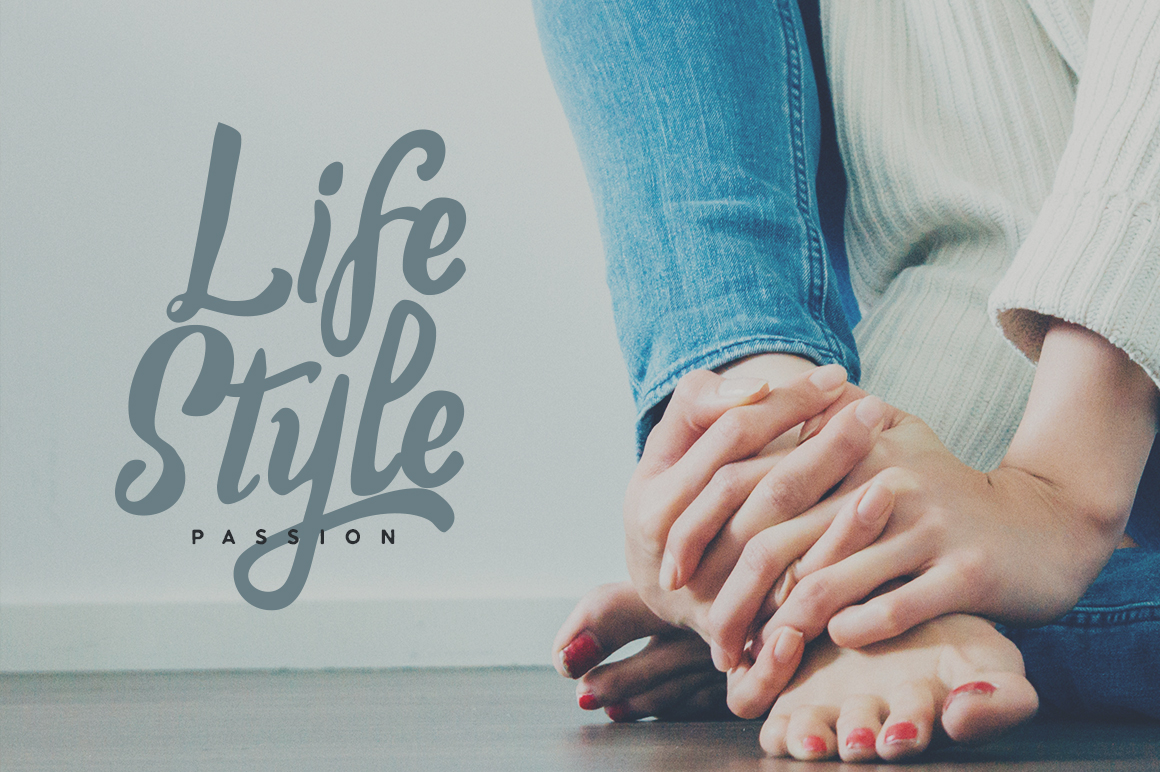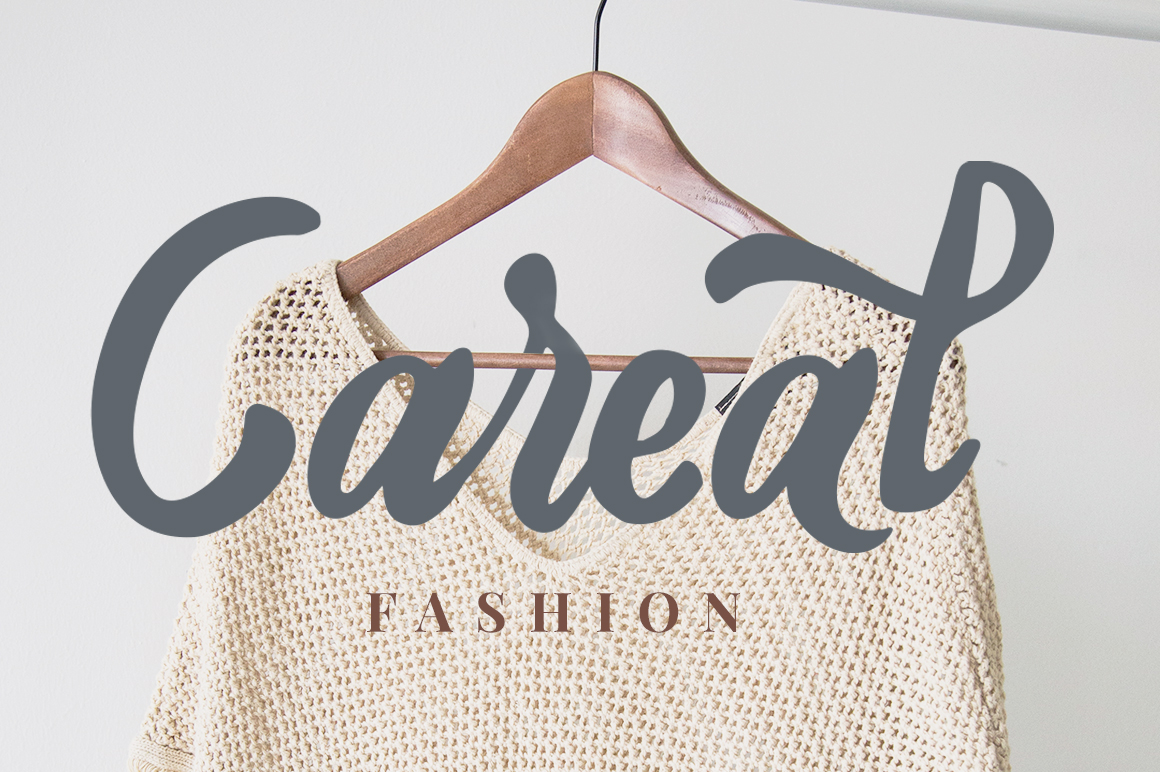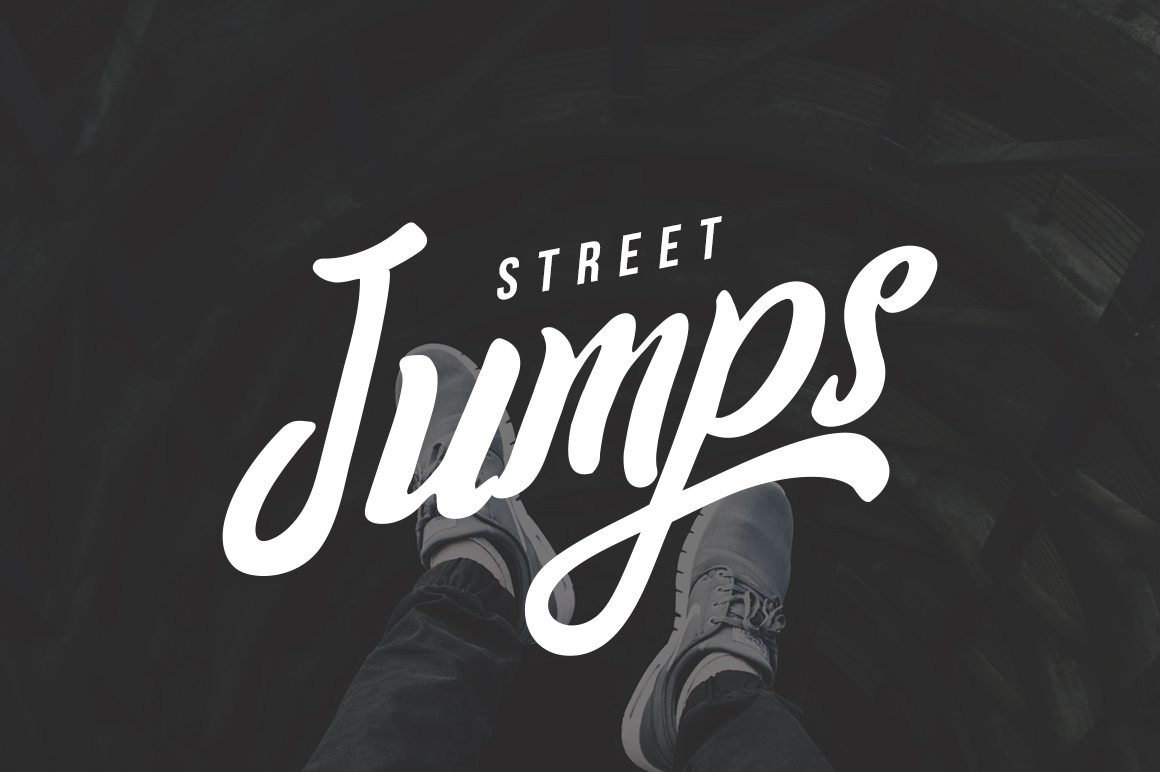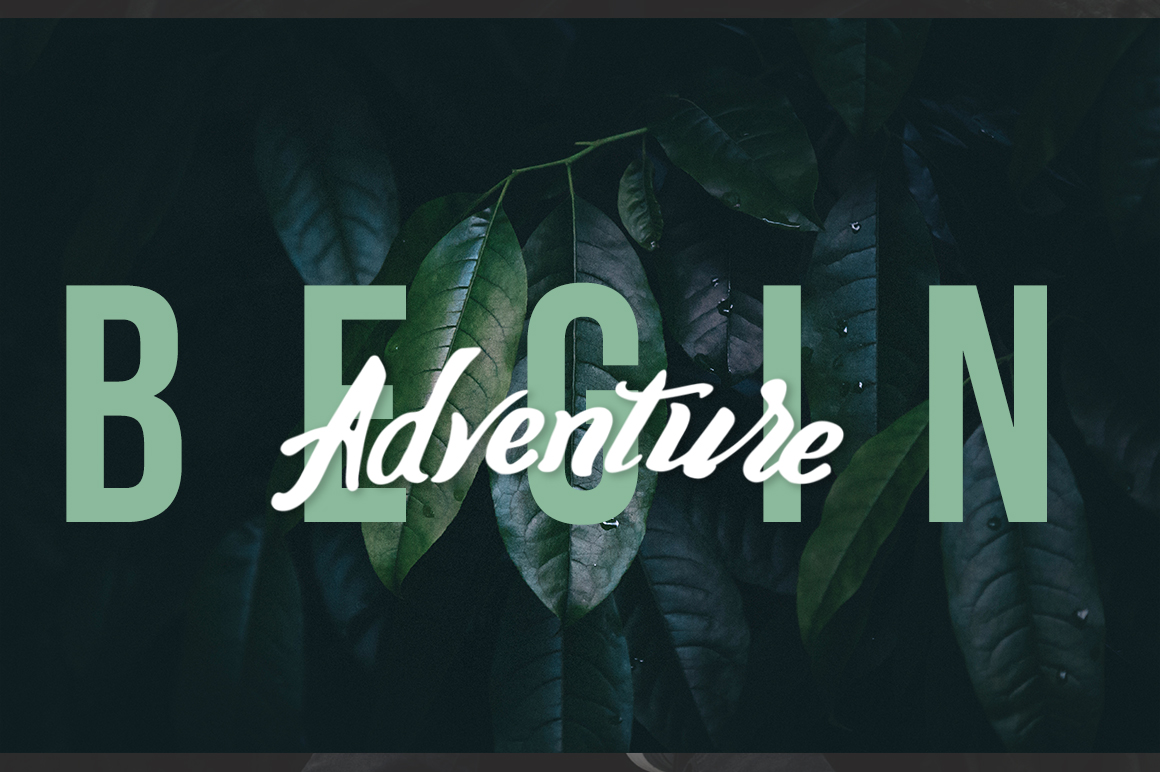
Befolk Free Font
Befolk Free Font is a Sweet Bold Typeface with some Alternate. You can use it as a logo, badge, insignia, packaging, headline, poster, t-shirt/apparel, greeting card, and wedding invitation. The .flowing characters are ideal to make an attractive message, mix, and match befolk with a bunch of alternative characters to fit your project. This free typeface was designed by a talented Hendra Dirtyline. If you like it don’t forget to check out the full version.